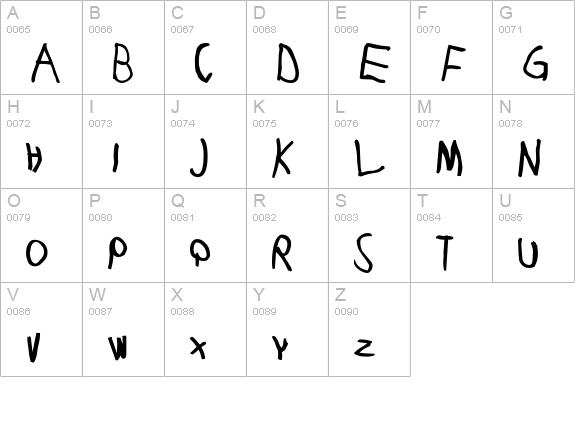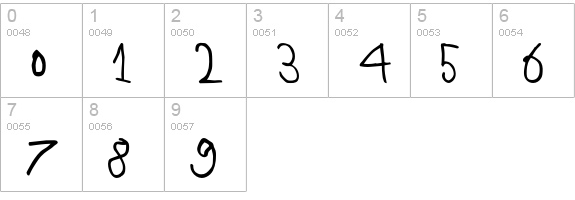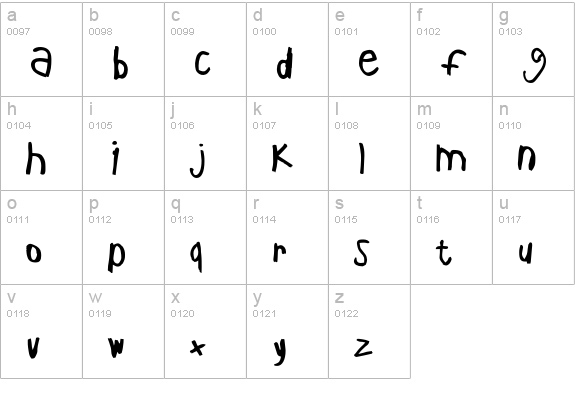
ChildsPlay-AgeSeven Font Details
ChildsPlay-AgeSeven font is a whimsical and playful typeface designed for young children. With its rounded edges and fun character shapes, this font captures the essence of childhood and imagination. Perfect for creating educational materials, storybooks, and other projects aimed at engaging young readers. This font is freely available to download at FontsMarket.com, making it accessible to all who want to add a touch of innocence and joy to their designs. Let ChildsPlay-AgeSeven font bring a sense of fun and creativity to your next project!